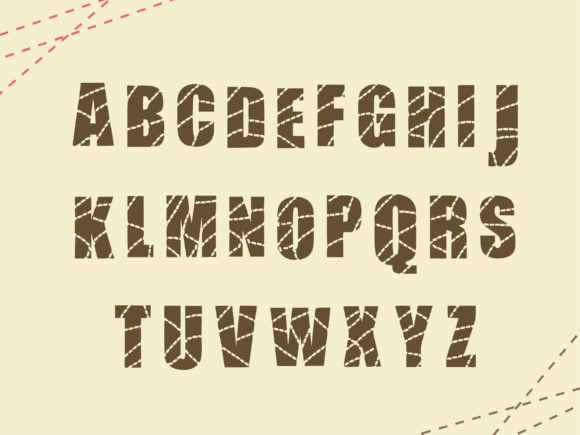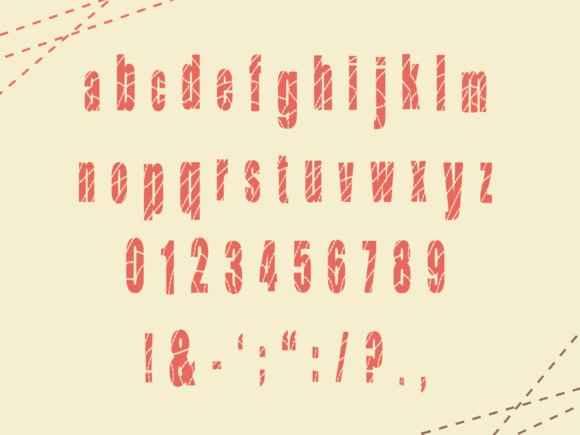
Introducing Block-Link Font: The Bold and Edgy Display Font
Are you looking for a font that can add a touch of industrial or mechanical aesthetic to your designs? Look no further than Block-Link Font, a display font that is sure to capture attention with its unique rectangular shapes and chain design. In this article, we’ll take a closer look at the features and benefits of Block-Link Font, and explore how it can be used to elevate your designs.
The Unique Design of Block-Link Font
Block-Link Font is a bold and edgy display font that is crafted from rectangular shapes that are connected with chains. Each letter is carefully designed to give the font a mechanical and industrial feel, making it perfect for use in designs that require a sense of strength and resilience. The chain design adds a unique texture and depth to the text, making it stand out from other fonts.
Key Features of Block-Link Font
- Rectangular Shapes: Each letter is crafted from rectangular shapes that give the font a bold and edgy look.
- Chain Design: The chain design adds a unique texture and depth to the text, making it perfect for use in industrial or mechanical designs.
- Display Font: Block-Link Font is a display font, making it perfect for use in headlines, titles, and other large text applications.
- Bold and Edgy: The font has a bold and edgy look that is sure to capture attention.
Uses for Block-Link Font
Block-Link Font is perfect for use in a variety of designs, including:
- Industrial Designs: The font’s industrial aesthetic makes it perfect for use in designs that require a sense of strength and resilience.
- Mechanical Designs: The font’s mechanical feel makes it perfect for use in designs that require a sense of precision and accuracy.
- Headlines and Titles: The font’s bold and edgy look makes it perfect for use in headlines and titles.
- Logos and Branding: The font’s unique design makes it perfect for use in logos and branding applications.
Tips for Using Block-Link Font
Here are a few tips for using Block-Link Font in your designs:
- Use it sparingly: Block-Link Font is a bold and edgy font, so it’s best to use it sparingly to avoid overwhelming the design.
- Pair it with a simple font: Pairing Block-Link Font with a simple font can help to create a striking contrast and make the design more visually appealing.
- Experiment with different colors: Block-Link Font looks great in a variety of colors, so don’t be afraid to experiment and find the perfect color for your design.
| Font Name | Block-link Font |
| Author | Happy Bamboo |
Block-Link Font is a bold and edgy display font that is sure to capture attention. Its unique rectangular shapes and chain design make it perfect for use in industrial or mechanical designs, and its bold and edgy look makes it perfect for use in headlines and titles. With its versatility and unique design, Block-Link Font is a great addition to any designer’s toolkit.